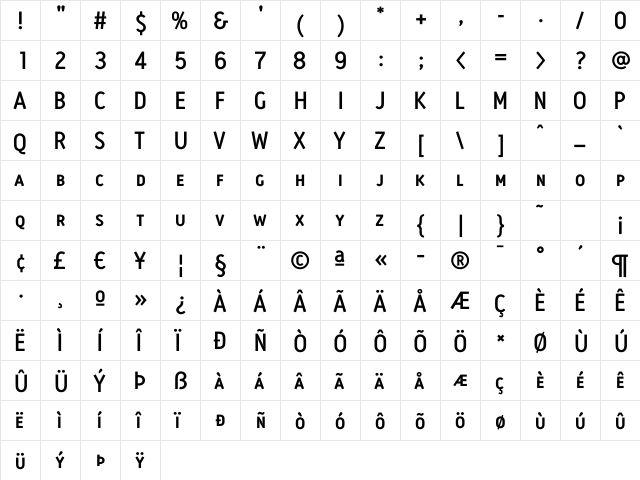
AntitledMedium Caps Regular
Design Context for AntitledMedium Caps Typeface
AntitledMedium Caps offers clean, dependable letterforms without strong stylistic allegiance, making it a practical choice for designers who need flexibility.